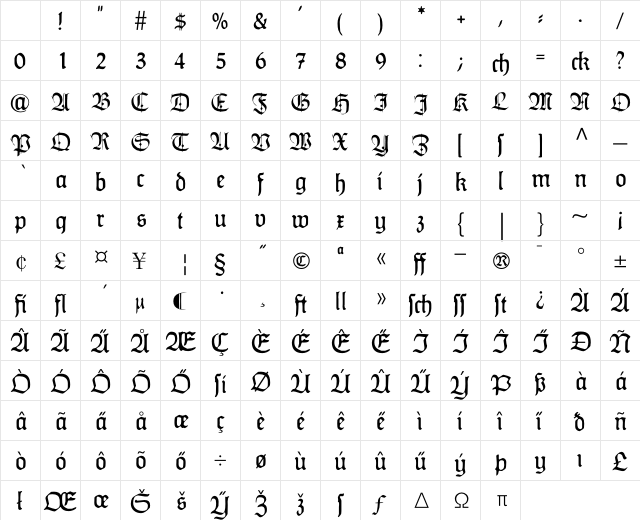
Complete HumboldtFraktur Zier Regular glyph index. Displaying only characters natively supported by HumboldtFraktur Zier Regular font.
HumboldtFraktur Zier draws on the rich tradition of blackletter calligraphy, with dense, angular strokes that evoke medieval manuscripts and old-world craftsmanship. Its bold stroke weight gives it real presence on the page.
Font Pairing: Pair with a clean neutral sans-serif for body copy to let HumboldtFraktur Zier's character lead without overwhelming the composition.
Pro Tip: Reserve HumboldtFraktur Zier for display and logo use - pair it with a clean sans-serif for body copy to prevent the composition from feeling oppressive.